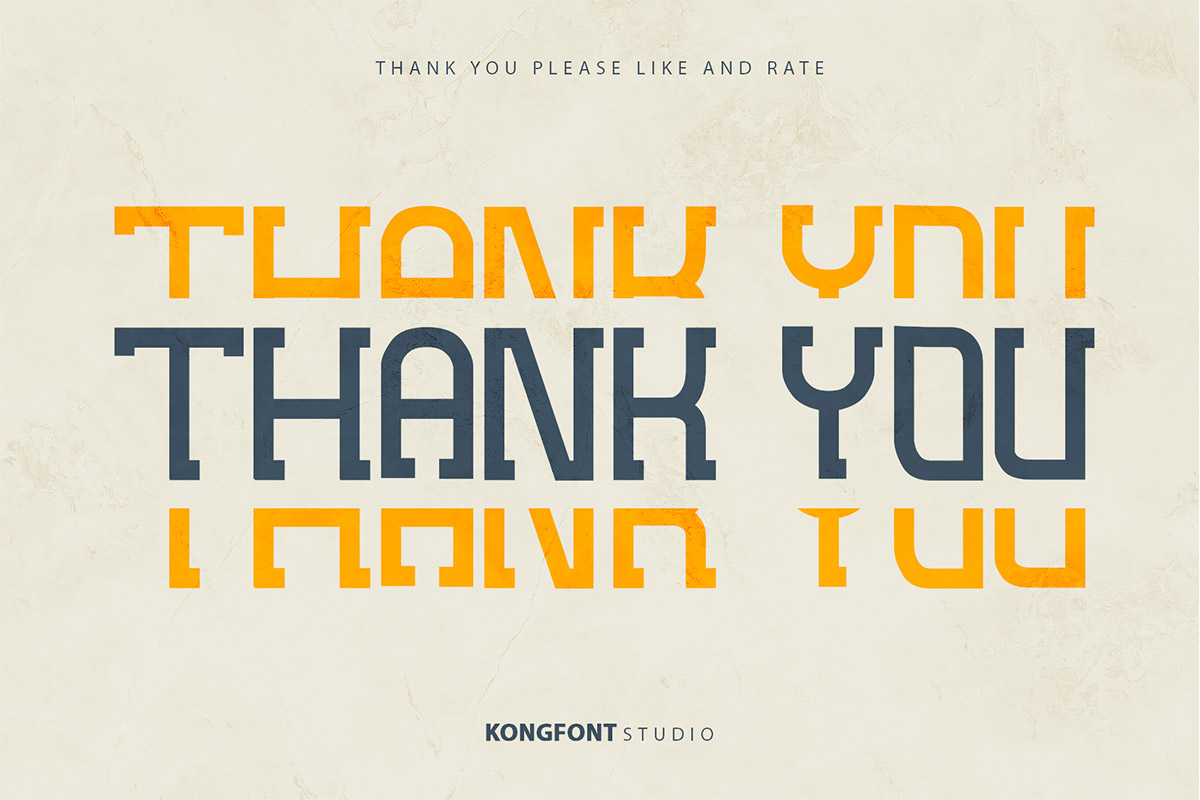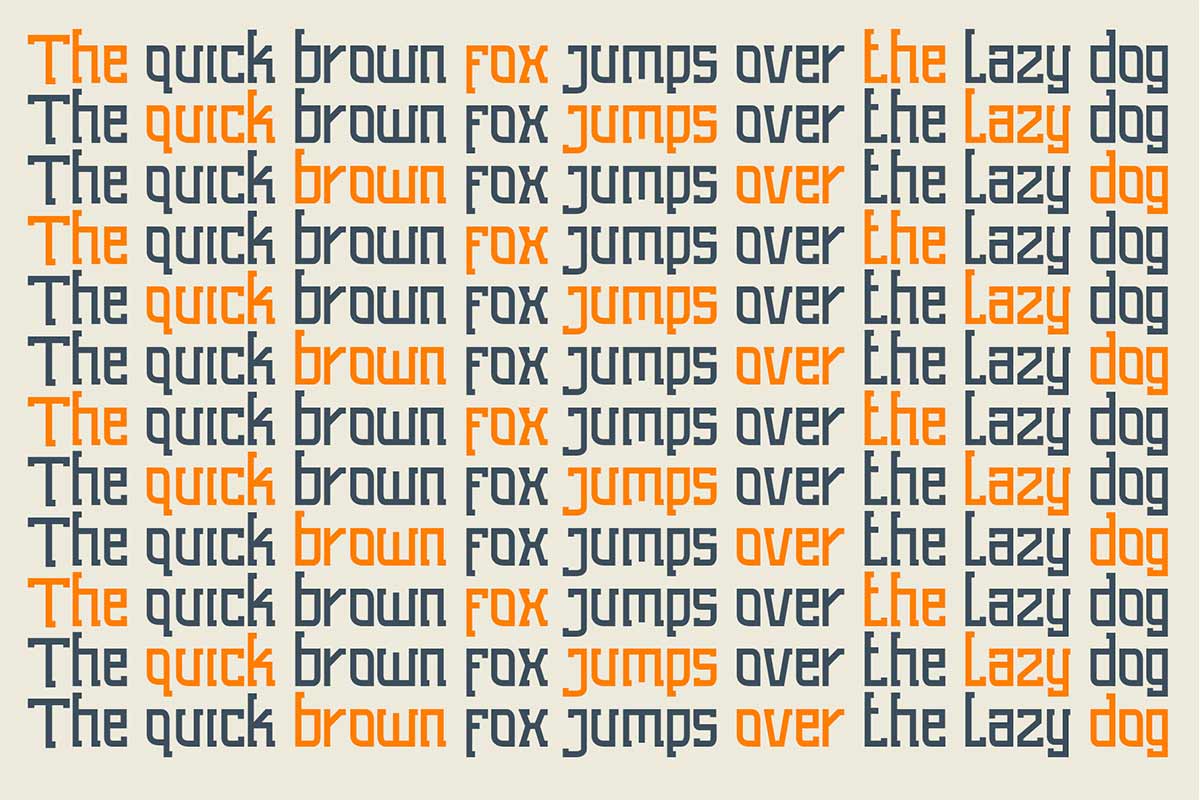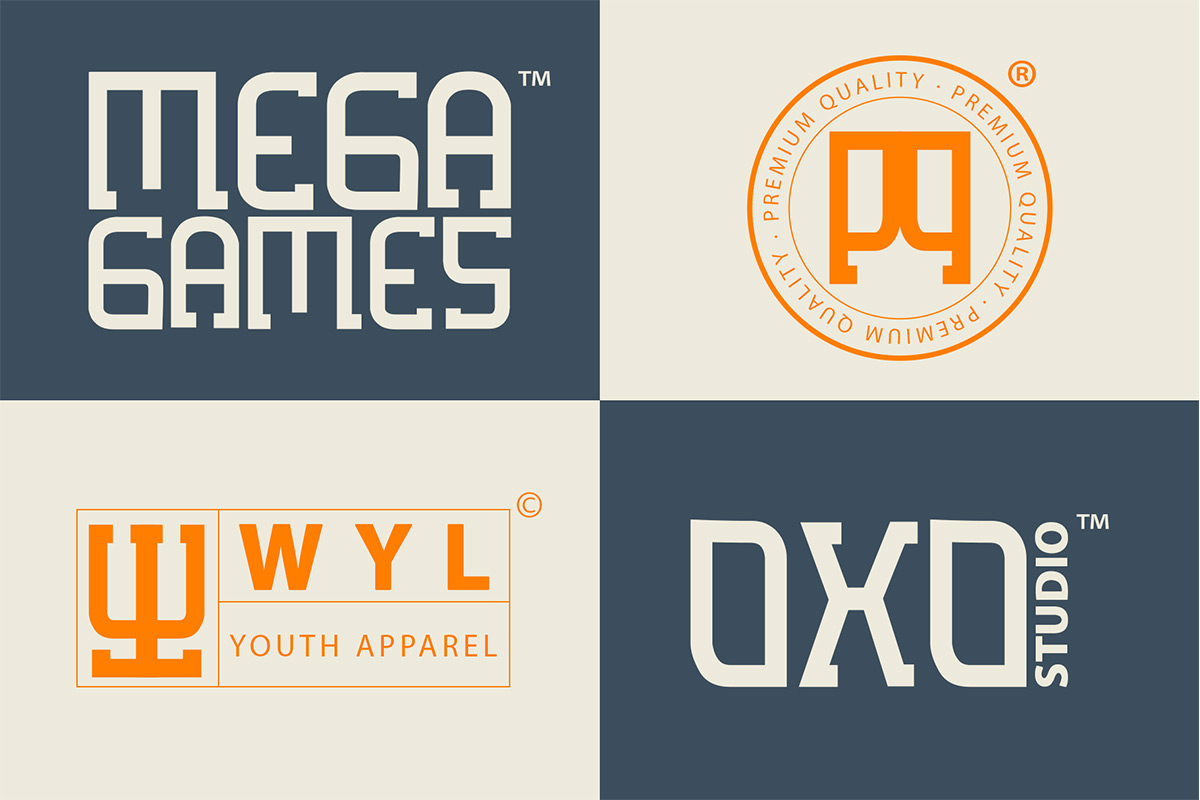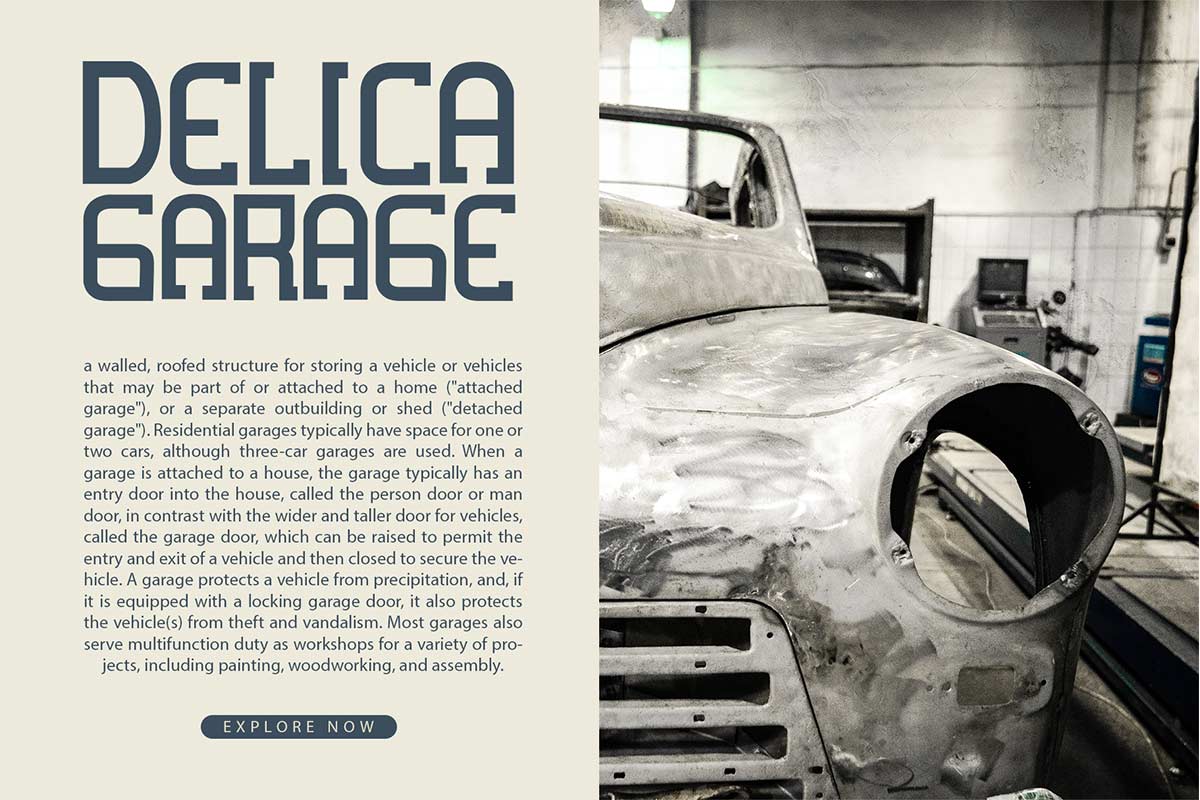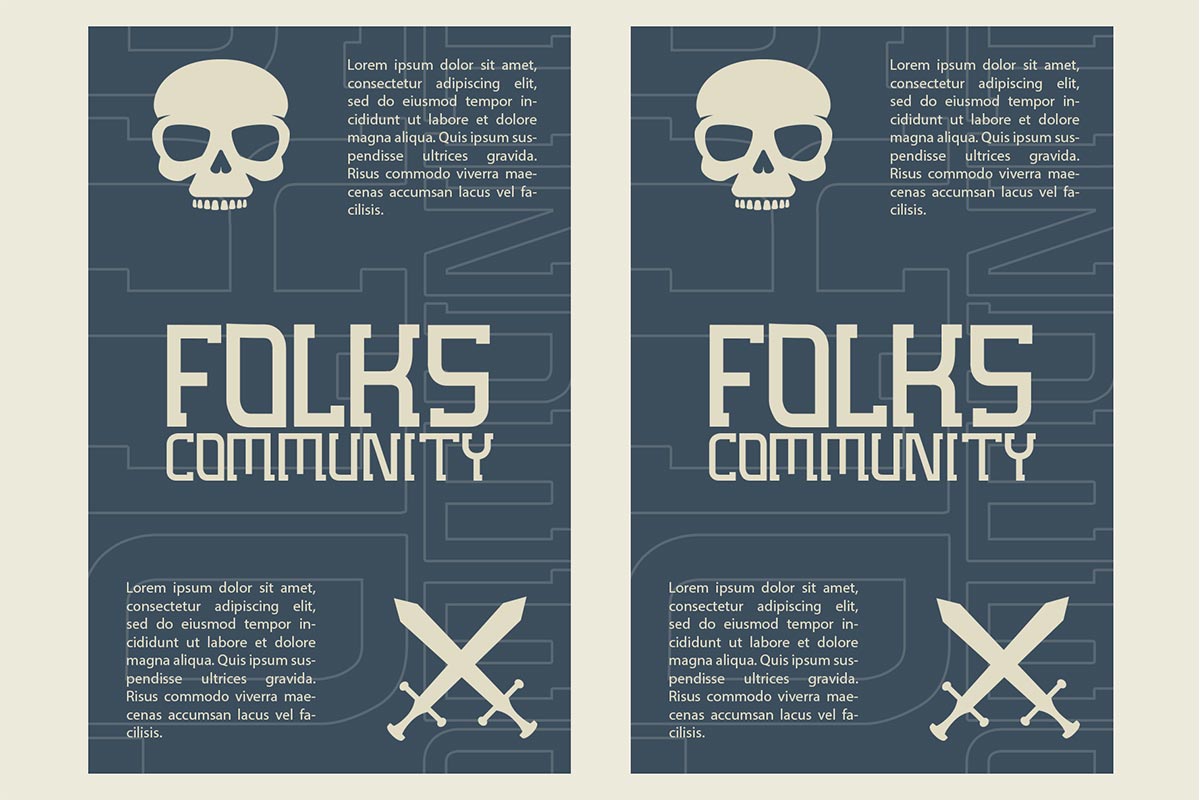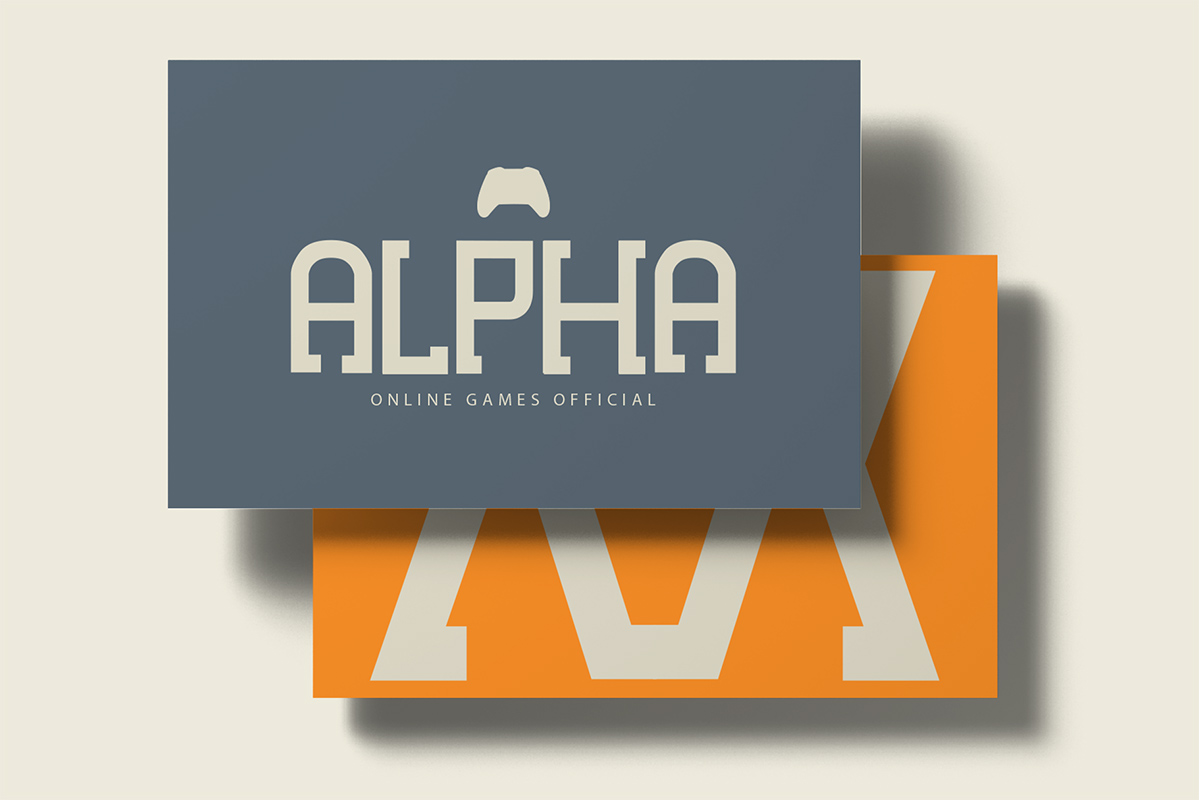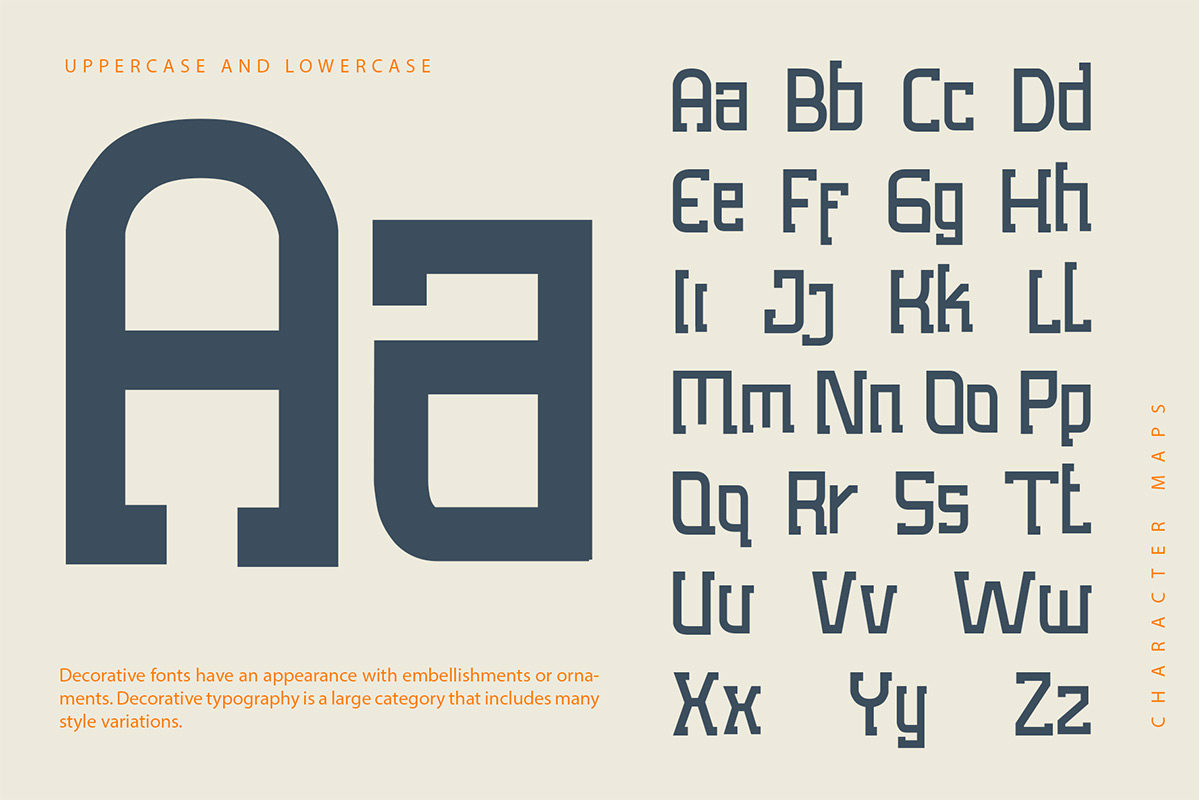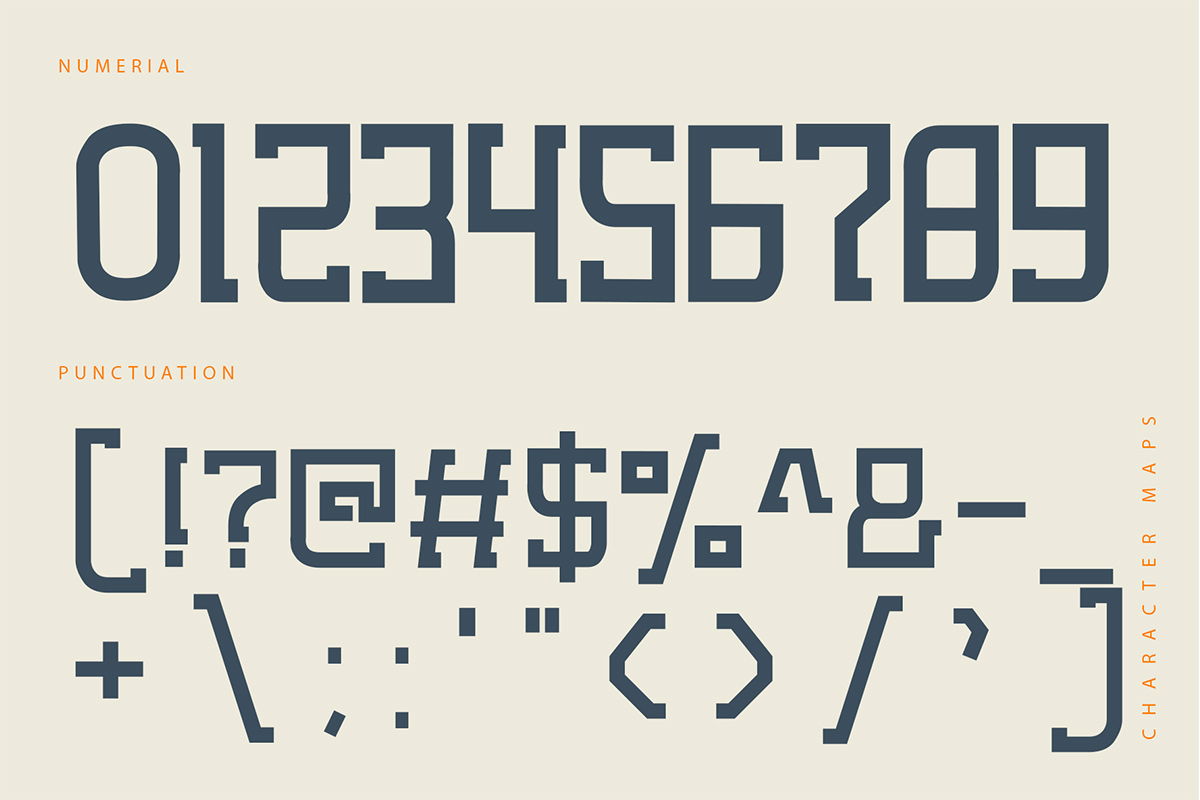
Lobots display Font Lobots Modern Fancy Decorative Font provides a new look that is different from the general fonts. This font is a serif font that carries a modern, simple, and elegant. It can also use as a bold and modern font. Lobots Modern Fancy Decorative Font has many matches when combined with the product to be used. Fashion brand tags such as clothing will work well with this typeface. There is no need to add excessive pictures and ornaments because the Lobots Modern Fancy Decorative Font has presented its identity where a simple yet elegant impression radiates. Lobots Modern Fancy Decorative Font is typeface that can use as digital fonts and print fonts. This font can use as a title that appears first in intro videos that catch the viewer's attention at a first impression. Posters and magazine cover work especially well when using the Lobots Modern Fancy Decorative Font. This is because even though this font is a serif typeface, it can be seen clearly and can be distinguished each letter. So this font is included in legible fonts. Our Dsiplay & Decorative fonts collection is compatible for use as; Figma Fonts, Canva Fonts, Freepik Fonts, and Adobe Fonts. They also work as Windows Fonts and Apple Fonts. For your social media needs, you can use and install fonts in our Serif font collection to use as Instagram Fonts, Facebook Fonts, and Twitter Fonts.